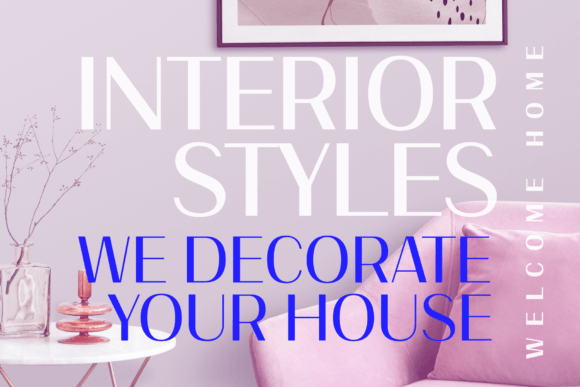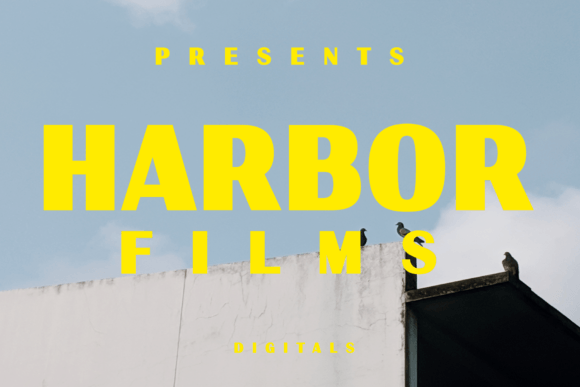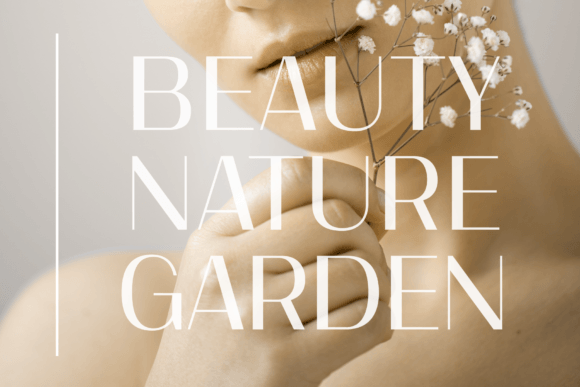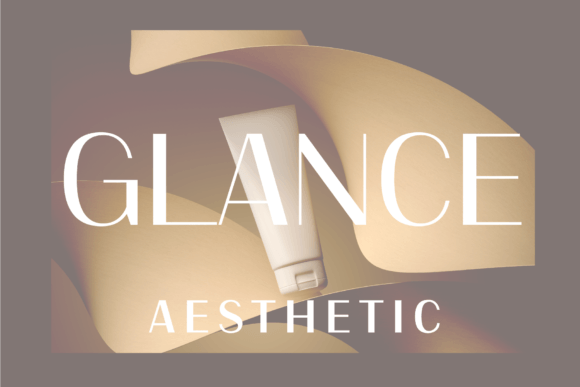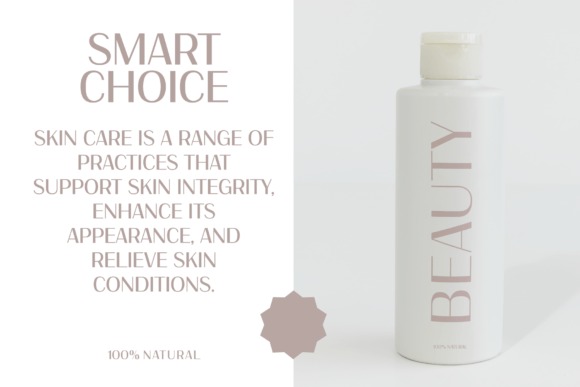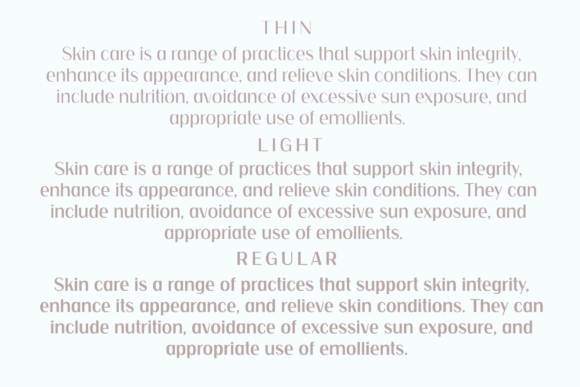
Aurelux Font: Elevate Your Design with Sophistication and Elegance
In the world of typography, a font can make or break the visual identity of a brand. For designers and crafters seeking to elevate their projects with a touch of sophistication and elegance, Aurelux font is an exceptional choice. This modern, luxury sans-serif font is designed to exude refinement and poise, making it perfect for upscale brands and diverse design applications.
The Essence of Aurelux Font
Aurelux is more than just a font; it’s a statement of style and sophistication. Its clean lines and refined design make it an ideal choice for designers who aim to create a lasting impression. Whether you’re working on a luxury brand, a high-end product, or a creative project, Aurelux offers the perfect blend of modernity and elegance.
Key Features of Aurelux Font
- Clean Lines and Refined Design: Aurelux boasts clean lines and a refined design that exudes sophistication and elegance.
- Versatile and Chic Aesthetic: The font’s versatile and chic aesthetic makes it suitable for a wide range of design applications, from luxury branding to digital media.
- Multiple Weights and Styles: Aurelux offers various weights and styles, allowing designers to customize their visual presentation and create a unique look.
Why Choose Aurelux Font?
With so many fonts available, why choose Aurelux? Here are a few compelling reasons:
- Sophistication and Elegance: Aurelux is designed to convey sophistication and elegance, making it perfect for upscale brands and high-end products.
- Versatility: The font’s versatility makes it suitable for a wide range of design applications, from print to digital media.
- Customization: With multiple weights and styles, designers can customize their visual presentation and create a unique look that sets their project apart.
Applications of Aurelux Font
Aurelux font is suitable for a wide range of design applications, including:
- Luxury Branding: Aurelux is perfect for luxury brands seeking to create a sophisticated and elegant visual identity.
- High-End Products: The font is ideal for high-end products, such as jewelry, fashion, and luxury goods.
- Digital Media: Aurelux can be used in digital media, such as websites, social media, and advertising.
- Print Media: The font is also suitable for print media, such as magazines, brochures, and business cards.
Tips for Using Aurelux Font
To get the most out of Aurelux font, here are a few tips:
- Pair with Other Fonts: Aurelux can be paired with other fonts to create a unique and visually appealing combination.
- Experiment with Weights and Styles: Try out different weights and styles to find the perfect combination for your project.
- Use for Headings and Titles: Aurelux is perfect for headings and titles, where its clean lines and refined design can make a lasting impression.
In conclusion, Aurelux font is an exceptional choice for designers and crafters seeking to elevate their projects with sophistication and elegance. Its clean lines, refined design, and versatile aesthetic make it perfect for upscale brands and diverse design applications. With multiple weights and styles, Aurelux offers endless possibilities for customization, allowing designers to create a unique look that sets their project apart.
Whether you’re working on a luxury brand, a high-end product, or a creative project, Aurelux font is sure to make a lasting impression. So why wait? Explore the various weights and styles of Aurelux today and elevate your design to new heights of sophistication and elegance.